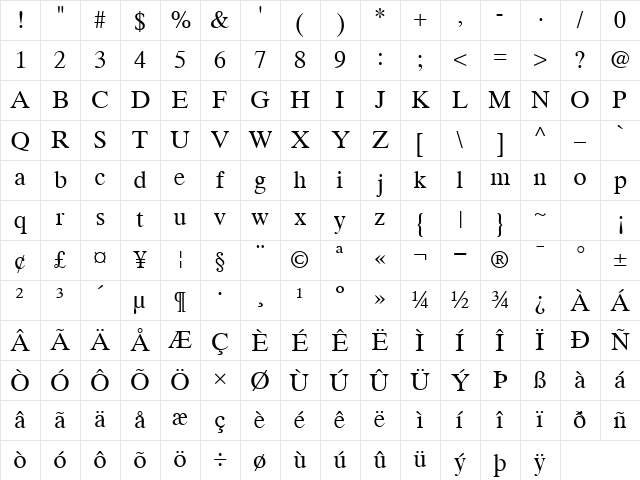
GrecoTenSSK Regular
Design Context for GrecoTenSSK
GrecoTenSSK is a composed and adaptable typeface that performs quietly and consistently across a wide range of design contexts.